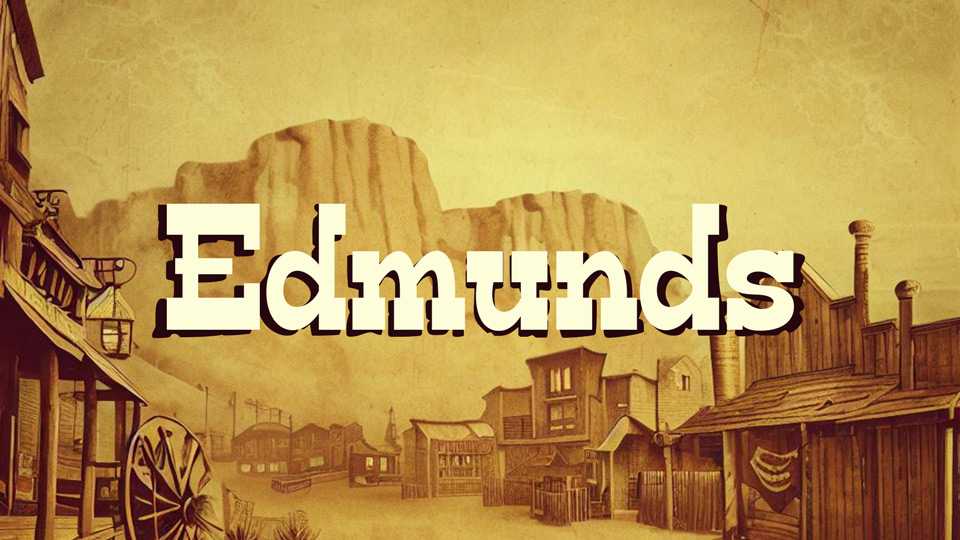
Download Edmunds font, a cowboy typeface with ridiculous curves and clunky slab serifs. Its cheesy cowboy style will express your message in a playful, easygoing, country-time tone.
Designer: Typodermic Fonts